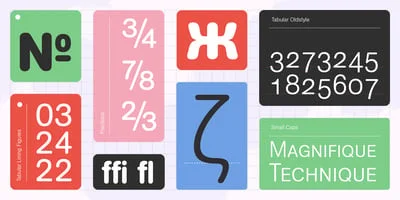
Friendly Font
The Friendly Font is perfect for welcoming design projects including children's book illustrations, daycare center branding, family restaurant menus, greeting card designs, educational materials, toy packaging, community event flyers, and healthcare marketing materials. This approachable typeface brings warmth and accessibility to any design project that needs to create positive connections with audiences.
What makes Friendly Font so exciting is its naturally inviting character that instantly creates a sense of comfort and trust. The letters feature soft, rounded edges with gentle curves that evoke feelings of safety, happiness, and approachability. This distinctive warmth makes it perfect for brands and projects that want to communicate care, reliability, and genuine human connection.
The Friendly Font family typically includes regular, bold, and light weights, along with playful decorative variations and comprehensive character sets. Many versions feature rounded alternatives, cheerful symbols, and child-friendly elements that enhance its versatility for family-oriented and educational applications.
Whether you're designing for family businesses, educational institutions, or community organizations, Friendly Font offers the perfect solution for projects that need to build trust and create positive emotional connections. This font transforms standard text into welcoming designs that immediately communicate approachability, kindness, and genuine care to your audience.